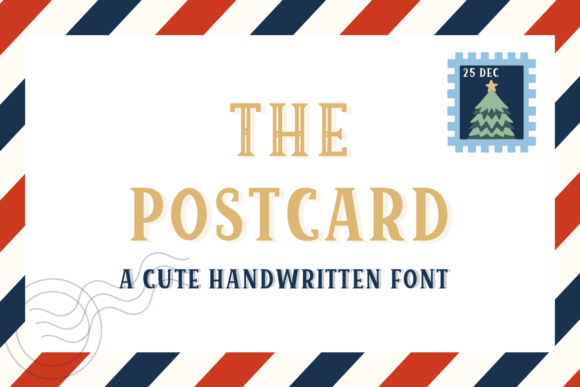
Introducing The Postcard Font, the ultimate font for all your festive needs! Created by Nyla.studio, this cute handwritten font is here to add a touch of playfulness and charm to your projects. Whether you're working on circuit projects, designing shirts, or creating retro masterpieces, The Postcard Font is the perfect companion.
With its decorative font family, The Postcard Font is specifically designed to elevate your Christmas card game. Imagine the joy on your loved ones' faces when they receive a beautifully crafted card featuring this delightful font. It adds a unique and personal touch that will make your greetings stand out from the rest.
But the fun doesn't stop there! The Postcard Font is incredibly versatile, making it ideal for a wide range of creative endeavors. From Christmas invitations to mugs, stickers to playful quotes, this font brings life and character to every project. Need to create eye-catching posters or design captivating logos? Look no further, as The Postcard Font has got you covered.
Greeting cards and packaging also benefit from the charm of The Postcard Font. Imagine receiving a beautifully wrapped gift with a heartfelt message written in this font. It's sure to make any present feel extra special and memorable.
Not only does The Postcard Font add flair to illustrations, but it also effortlessly decorates them, giving your artwork a whimsical and captivating touch. Let your creativity run wild as you explore the endless possibilities this font offers.
In conclusion, The Postcard Font is the go-to choice for anyone looking to infuse their designs and projects with a dose of cuteness and holiday spirit. Don't settle for ordinary fonts when you can have something extraordinary. Download The Postcard Font today and unlock a world of creative possibilities!